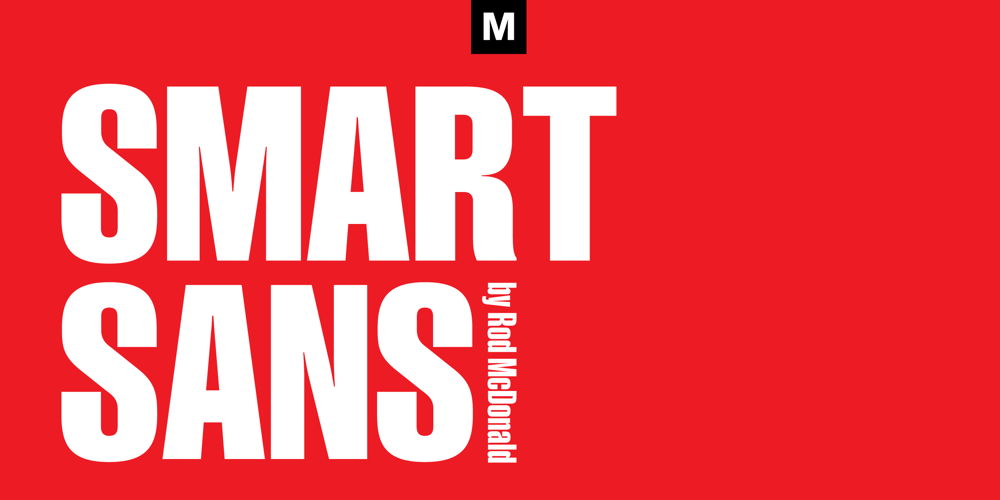
Smart Sans Font Family was designed by Rod McDonald and published by Monotype. Smart Sans contains 3 styles and family package options. Smart Sans is a personal tribute to Leslie (Sam) Smart, the first type director to be hired by a major typesetting house in Canada. Smart was a twentieth century design pioneer who raised the standards of Canadian typography. Together with three of his peers, he established the first Type Directors Club in Toronto.After Smart’s death in 1998, type designer Rod McDonald decided that something should be done to commemorate Smart’s life and achievements. I had first thought of establishing a scholarship in Sam’s name, but a typeface design soon replaced this idea,” says McDonald. “Once I decided to design a typeface, however, it became a foregone conclusion that it would be a sans serif – for no other reason than that I loved the name Smart Sans.”Two typefaces served as inspiration for McDonald’s work. “Like thousands of designers, I’m keen on Matthew Carter’s Helvetica Compressed series. And, when I was younger, I also loved Fred Lambert’s Compacta,” says McDonald. “I thought there might be a place for a small range that could take over from these ‘old workhorses’ and, in the process, bring a fresher look to the genre.”McDonald drew three weights for the Smart Sans family, all ideally suited for setting attention-getting headlines and powerful display copy. The two-storied ‘g’ contributes to the design’s lively personality, and the short ‘r’ helps maintain tight, even spacing.Smart Sans is the perfect homage to a great typographer, because it raises the bar on what to expect from condensed sans serif typefaces. Sam Smart would be pleased.”